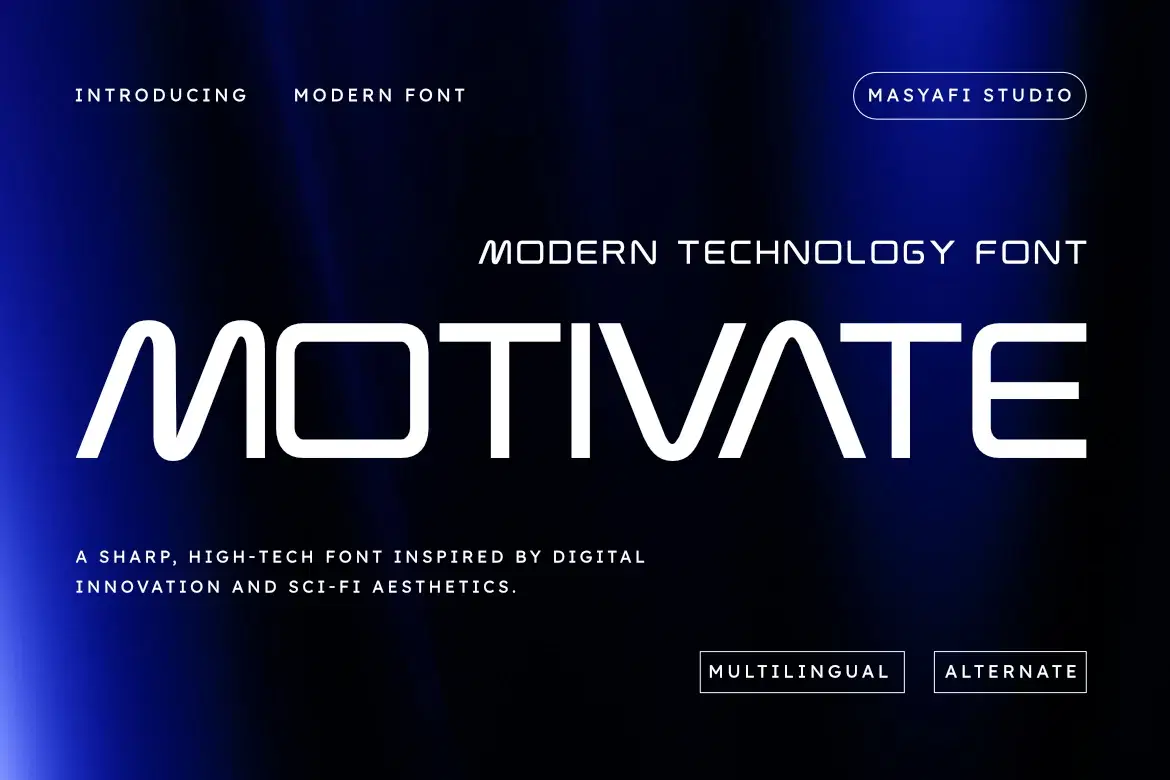
Motivate - Modern Technology Font
Introduce Motivate, a sharp and high-tech display font designed for the digital era. Inspired by sci-fi aesthetics and industrial innovation, this font features clean lines and unique geometric shapes that give your project a sophisticated, futuristic look.
Motivate is perfect for branding, logos, gaming posters, technology blogs, and futuristic UI/UX designs. Its wide-set characters and sharp edges ensure great legibility while maintaining a bold visual impact.
Main Features:
Modern, Sci-fi, and Minimalist look.
Sharp and Clean geometric shapes.
Ideal for Headlines, Logos, and Branding.
Standard Glyphs & Multilingual Support.